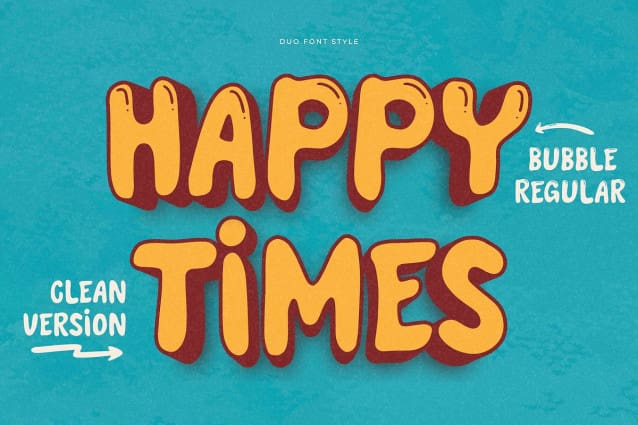
Sumbin Pamfao Font
Sumbin Pamfao Font | Bubble Font Display, from Denustudios, suitable for any projects such as: logos, branding projects, homeware designs, product packaging, mugs, quotes, posters, shopping bags, t-shirts, book covers, name card, invitation cards, greeting cards, label, photography, watermark, special events, and all your other lovely projects that need a Bubble Font Display taste.